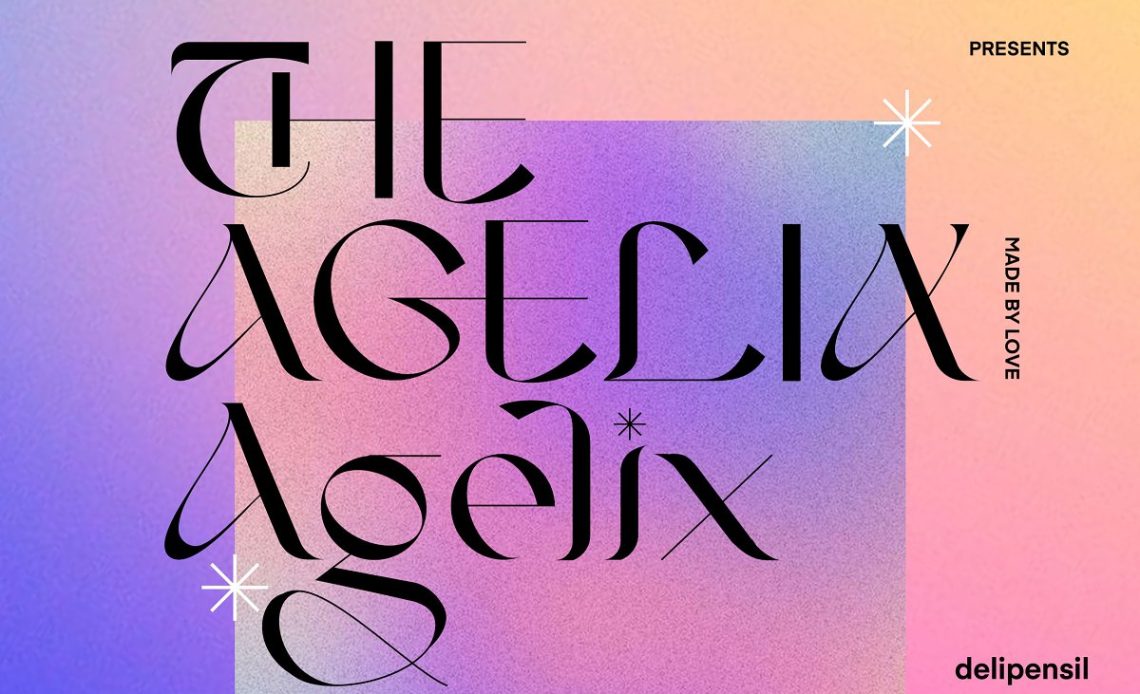
Looking for the best fonts for a modern and elegant look? Look no further than AGELIX - Modern Serif Typeface! Created by renowned designer Delip Nugraha, this font family is the perfect combination of beauty and mindfulness, resulting in a clean and classic serif font that's sure to impress.
Whether you're looking to create a stunning logo, design a book cover, or lay out a magazine, AGELIX has you covered. This versatile font family is perfect for any project that requires a touch of sophistication and refinement.
With AGELIX, you get everything you need to create beautiful designs that stand out from the crowd. In addition to the AGELIX OTF font, you also get access to AGELIX Font Style, AGELIX Numeral & Punctuation, and AGELIX Kerning Style. And with AGELIX Ligature Style, you can create stunning typography that flows effortlessly and looks absolutely gorgeous.
But AGELIX isn't just a font family - it's a way to elevate your designs and take them to the next level. This font is perfect for creating designs that evoke emotion and capture attention. Whether you're designing a logo for a beauty brand or creating a magazine spread that tells a story, AGELIX is the perfect font for the job.